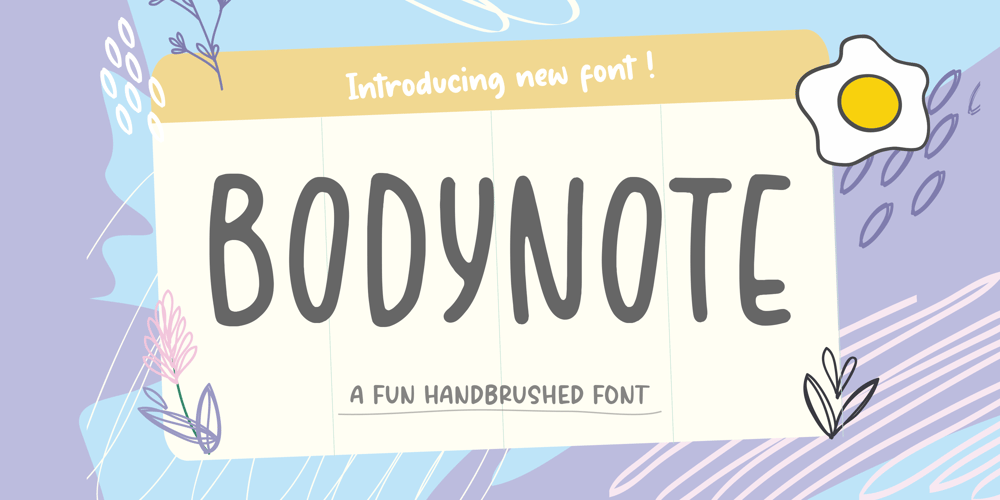
Bodynote
Bodynote font
Bodynote Font Family was designed by Restu Angga and published by Balpirick. Bodynote contains 1 styles and family package options. Proudly Present, BODYNOTE Font.BODYNOTE is a Fun Handbrushed Font.Bodynote is a fun and playful display font. This font is perfect for children themed designs, especially when combined with bright colors.This font includes TTF and OTF, BODYNOTE also multilingual support.Enjoy the font, feel free to comment or feedback, send me PM or email.Thank you!